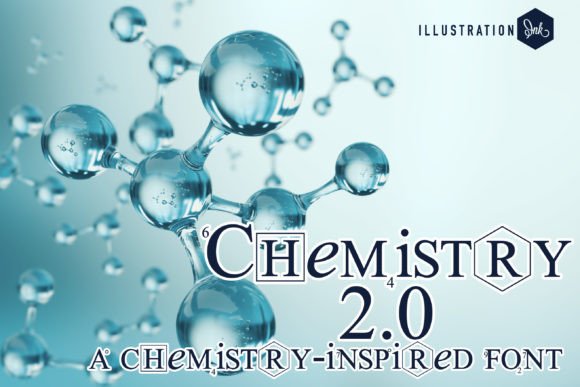
Chemistry 2.0 Font: Elevate Your Science-Related Projects with a Fun Serif Display Font
Are you looking for a unique and engaging font to add a touch of personality to your science-related projects or back-to-school materials? Look no further than the Chemistry 2.0 font! This fun serif display font is specifically designed to highlight letters with science and chemistry symbols, making it an excellent choice for educators, students, and science enthusiasts alike.
What is Chemistry 2.0 Font?
Chemistry 2.0 is a carefully crafted serif display font that combines classic typography with modern science and chemistry symbols. The font features a range of characters, including letters, numbers, and symbols, all designed to work together seamlessly to create a visually appealing and cohesive look.
What sets Chemistry 2.0 apart from other fonts is its unique approach to highlighting letters with science and chemistry symbols. Each letter is carefully paired with a relevant symbol, such as the periodic table symbol for elements, chemical reaction symbols, or laboratory equipment icons. This thoughtful design element adds a playful touch to the font, making it perfect for projects that require a bit of whimsy and personality.
Key Features of Chemistry 2.0 Font
- Fun and playful design: Chemistry 2.0 is designed to add a touch of fun and personality to your projects, making it perfect for back-to-school materials, science presentations, and educational resources.
- Science and chemistry symbols: The font features a range of science and chemistry symbols, including periodic table symbols, chemical reaction symbols, and laboratory equipment icons.
- Serif display font: Chemistry 2.0 is a serif display font, making it perfect for headings, titles, and other display text.
Benefits of Using Chemistry 2.0 Font
So why choose Chemistry 2.0 font for your science-related projects? Here are just a few benefits of using this unique and engaging font:
- Adds visual interest: The Chemistry 2.0 font adds a touch of visual interest to your projects, making them more engaging and attention-grabbing.
- Perfect for science and education: The font’s science and chemistry symbols make it perfect for science and education-related projects, adding a touch of authenticity and expertise.
- Customizable: The font is easy to customize, allowing you to adjust the size, color, and style to fit your project’s needs.
- Time-saving: The font’s pre-designed symbols and letters save you time and effort, allowing you to focus on the content of your project rather than designing the typography from scratch.
Project Ideas Using Chemistry 2.0 Font
The Chemistry 2.0 font is perfect for a range of science-related projects, including:
- Back-to-school materials: Use the font to create eye-catching posters, flyers, and brochures for back-to-school events and activities.
- Science presentations: Add a touch of personality to your science presentations with the Chemistry 2.0 font, using the pre-designed symbols and letters to highlight key concepts and ideas.
- Educational resources: Use the font to create engaging educational resources, such as worksheets, quizzes, and activity sheets.
- Laboratory labels: Use the font to create labels for laboratory equipment and materials, adding a touch of professionalism and expertise.